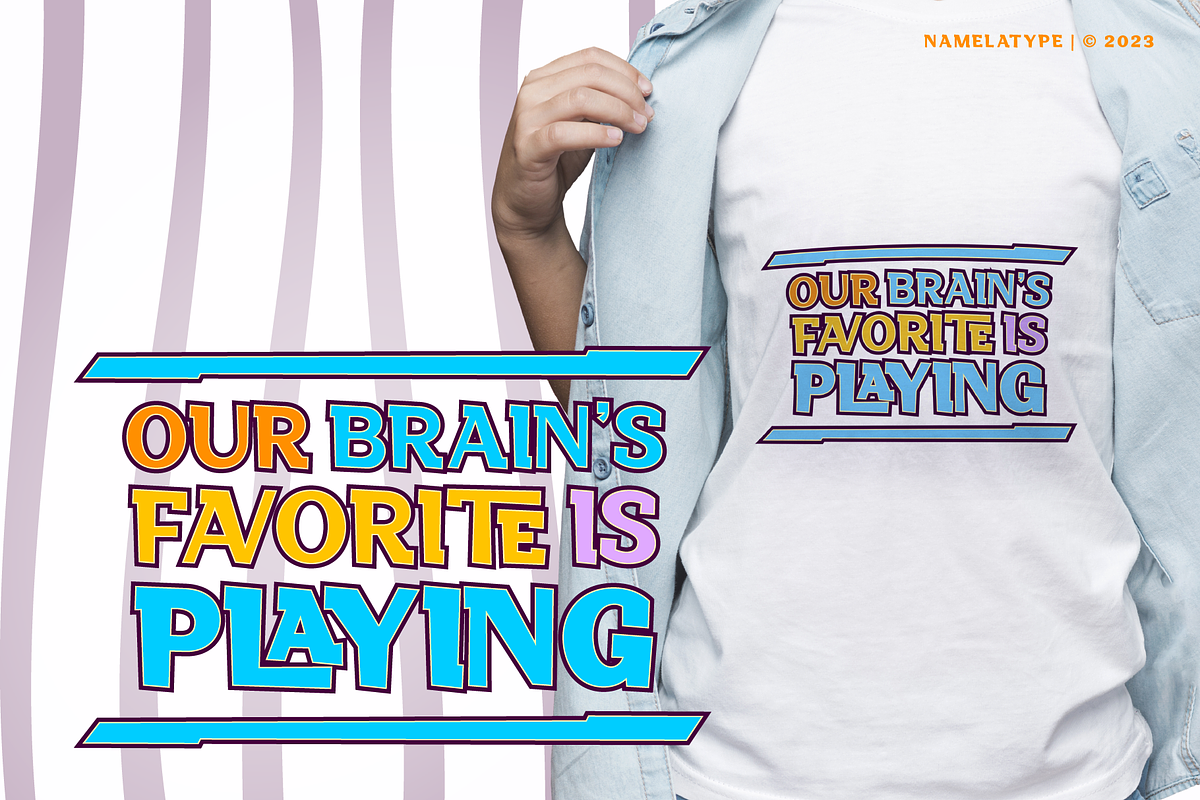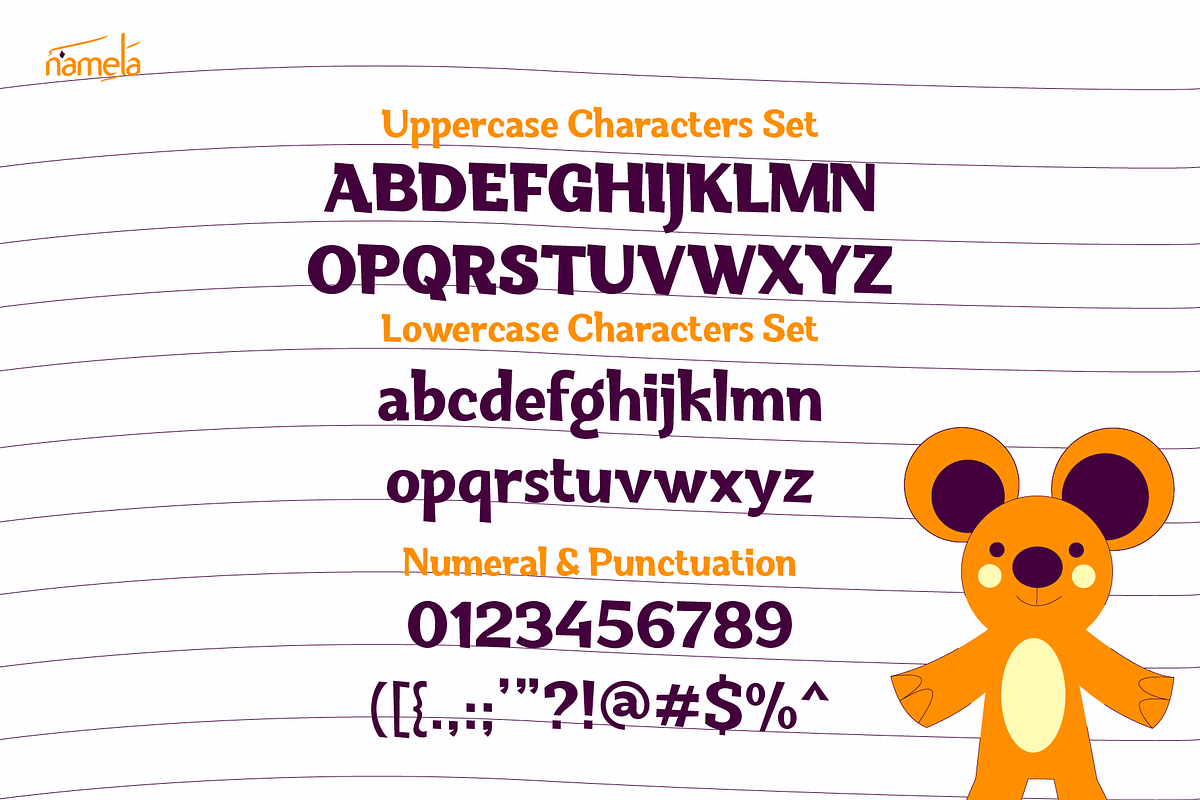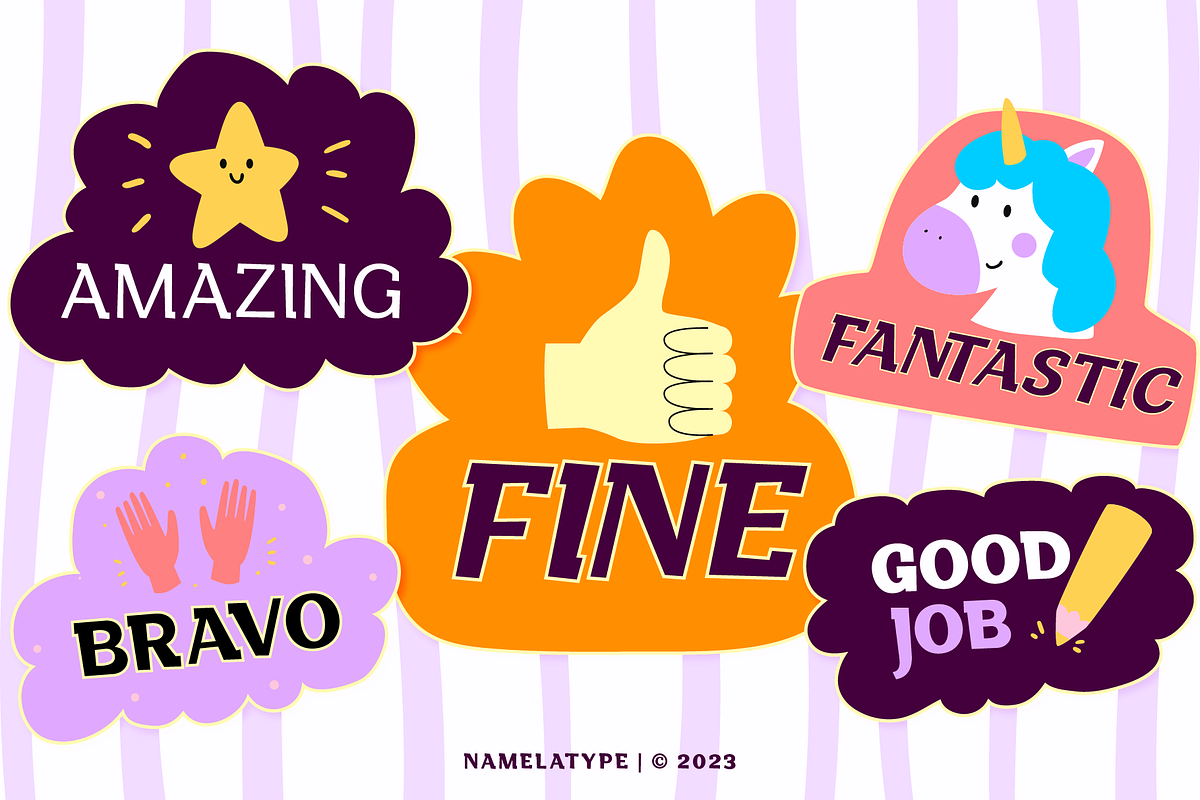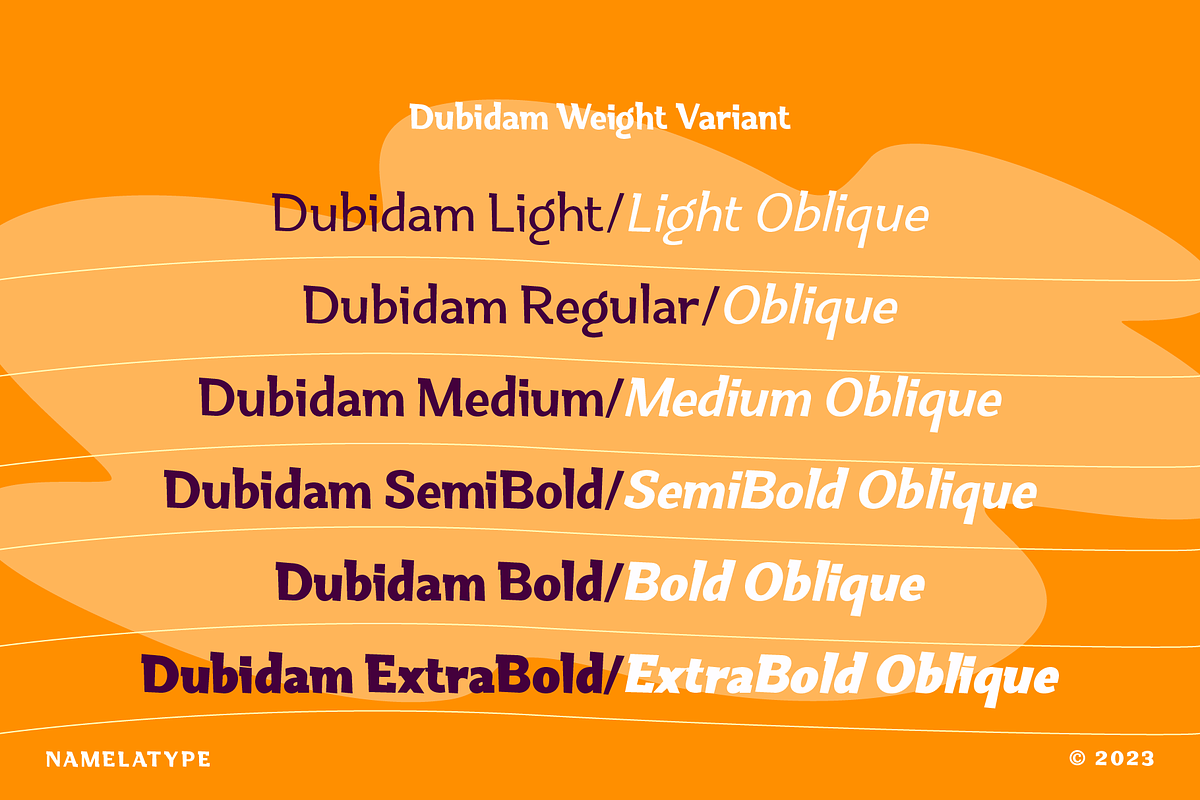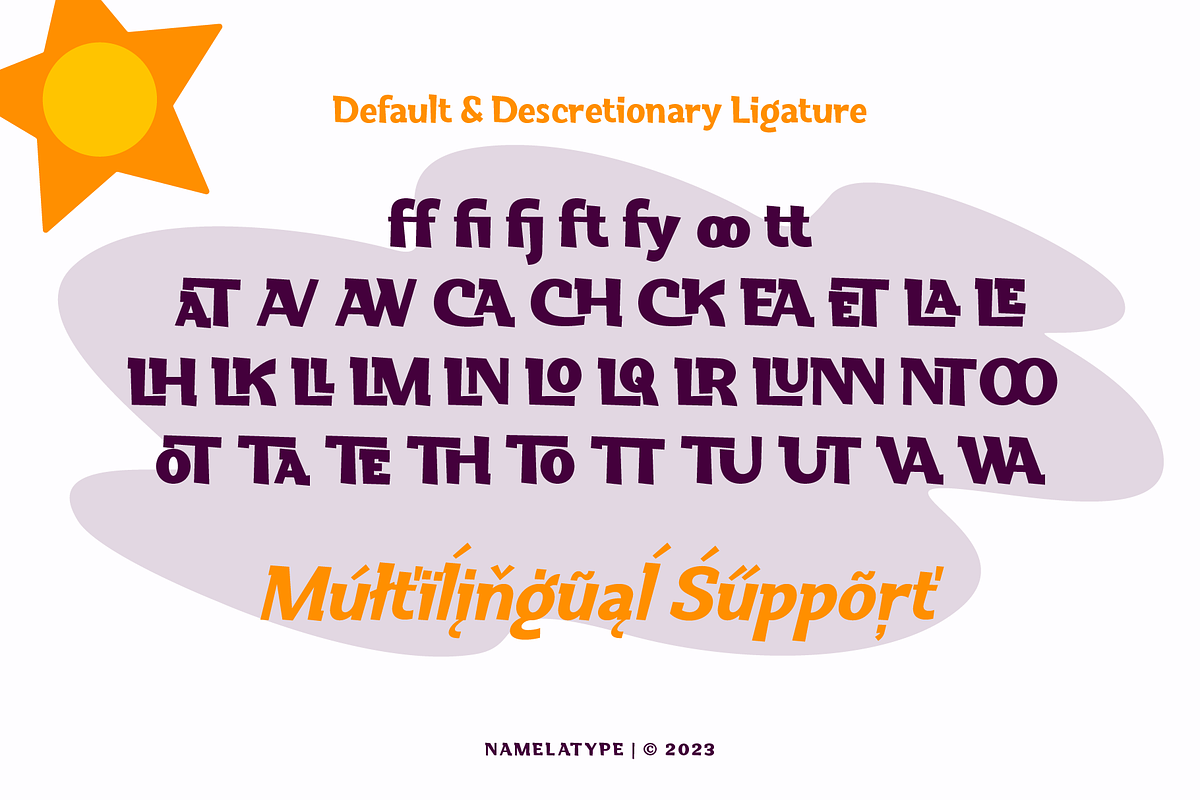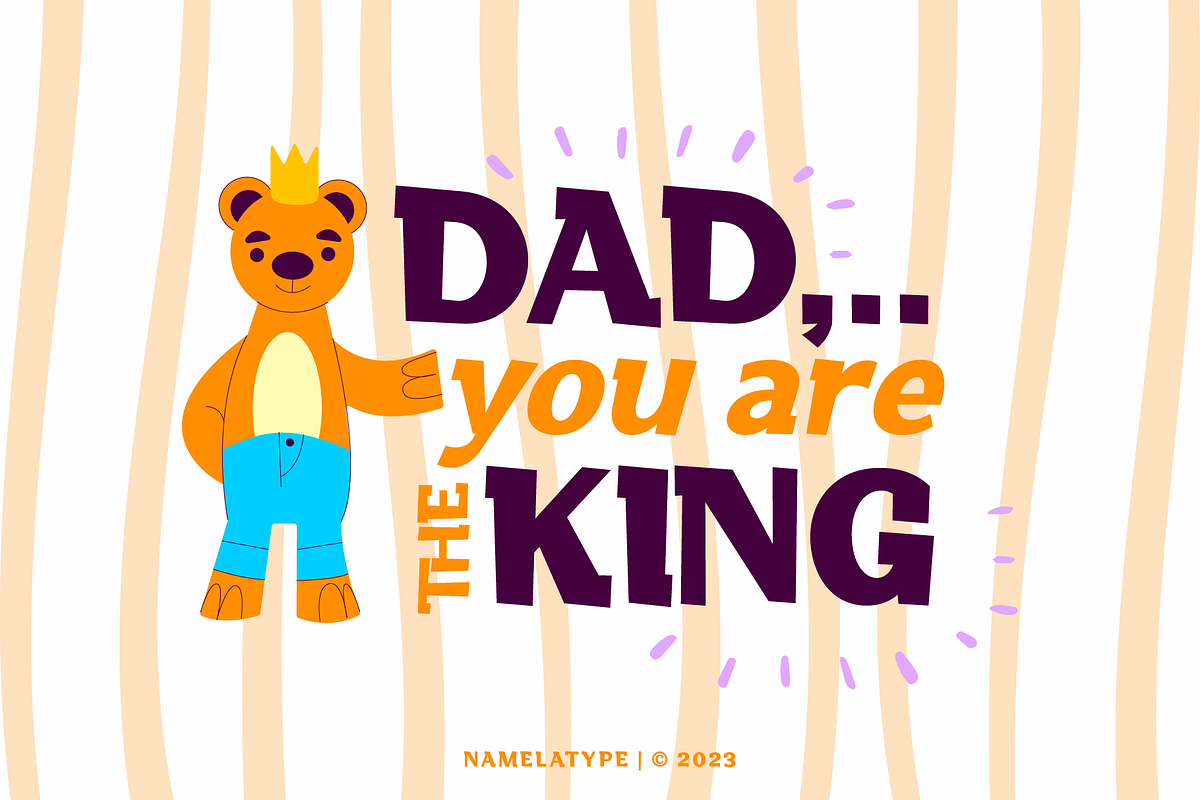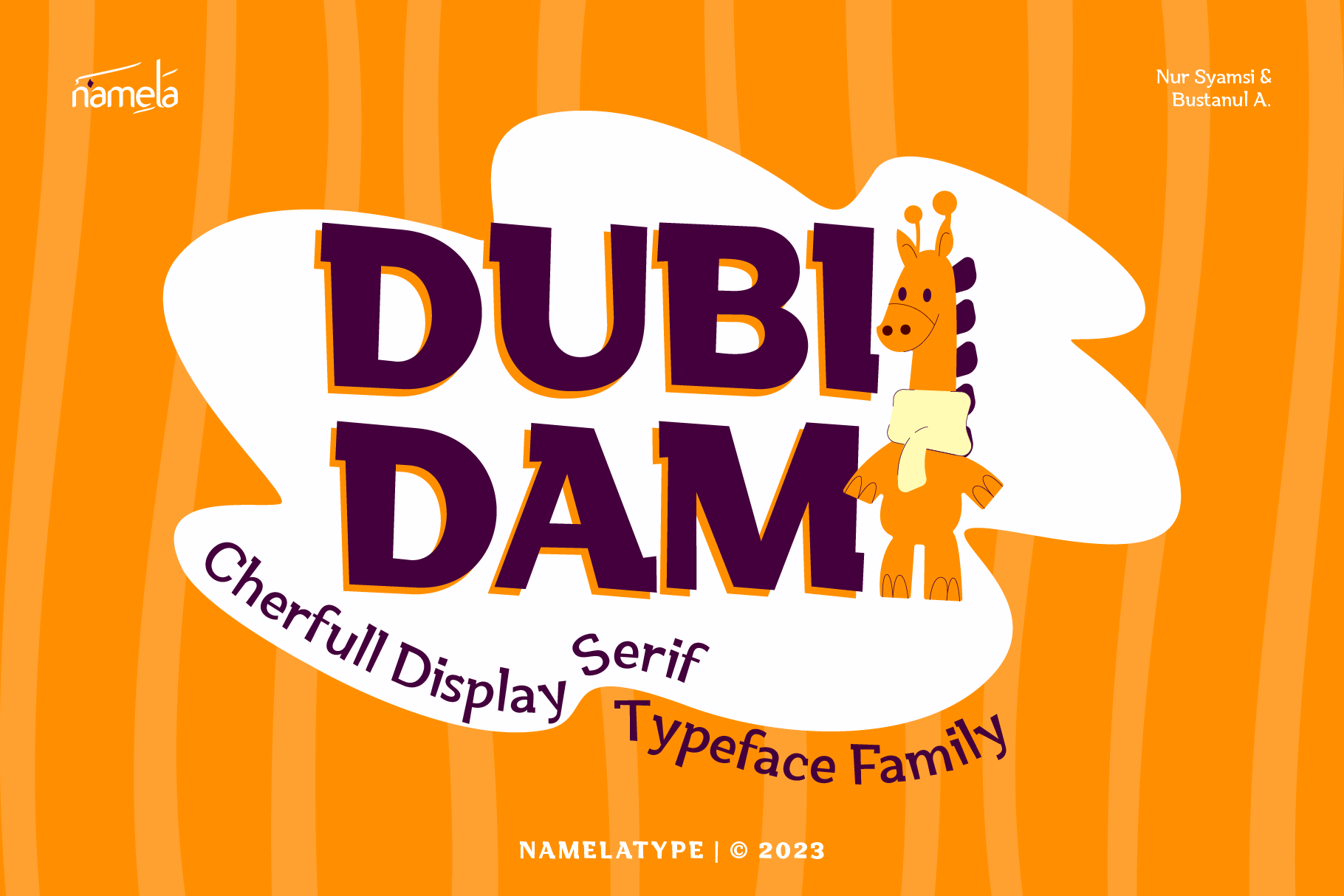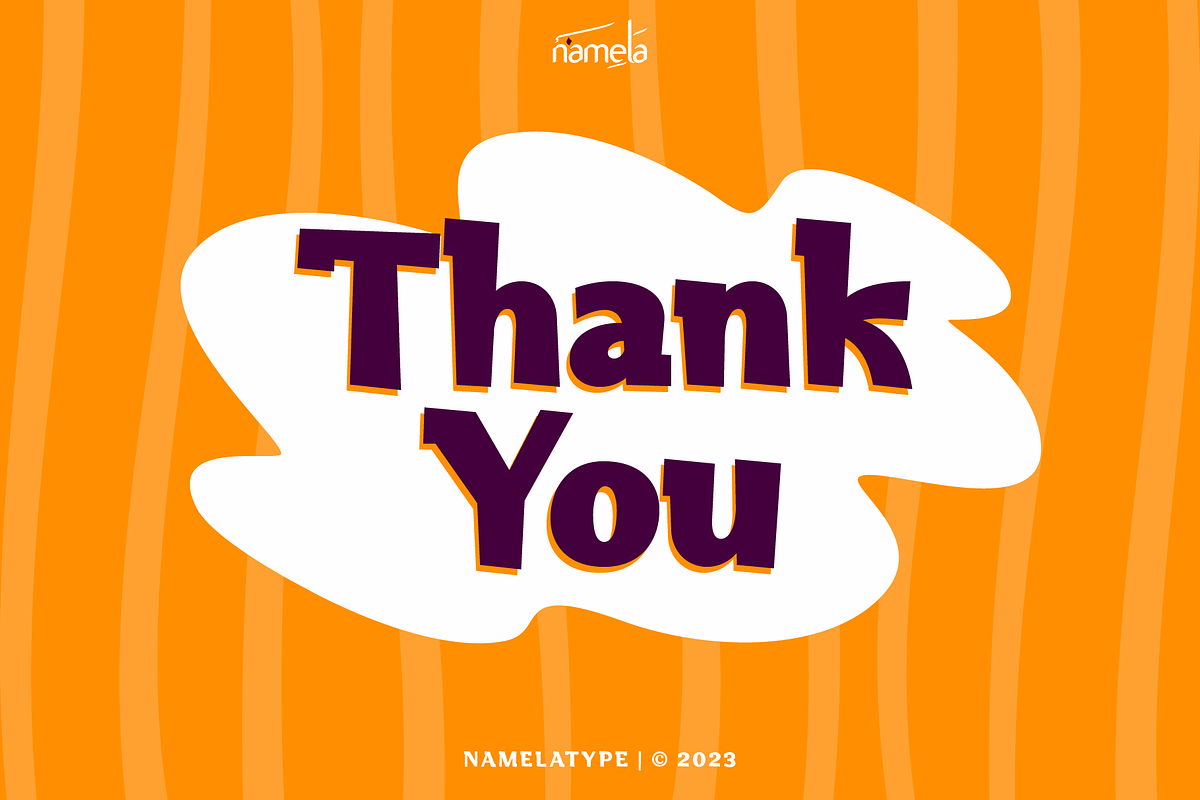
Dubidam | A Cheerful Slab Serif Font
Dubidam is Fun & Cheerful font, A burst of creative energy in every letterform. It strikes a harmonious balance between playfulness and firmness, giving your designs a unique and dynamic character. This font boasts a rich array of features, including stylistic alternates, standard and discretionary ligatures, and multilingual character support. All easily accessible through OpenType features.
Dubidam font prefect for branding projects, product packaging, advertising, quotes, and any context where a touch of fun and playfulness is desired.